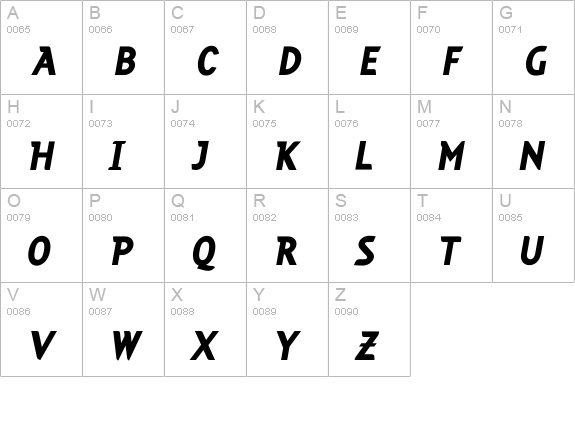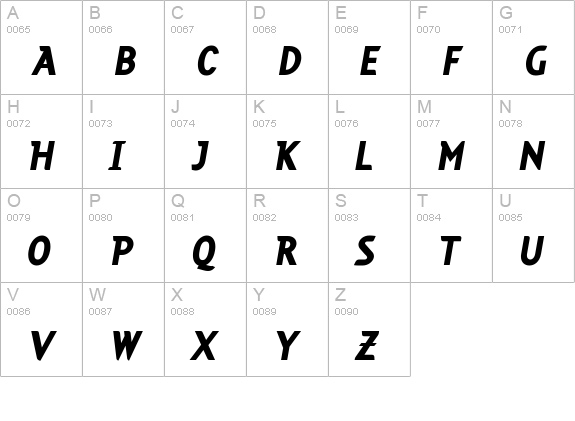
Cuban-BoldItalic is a stunning and expressive font that exudes sophistication and flair. With its bold yet elegant appearance, this font is perfect for making a bold statement in your designs. The italicized style adds a touch of dynamism and modernity to any project, whether it be for branding, advertising, or editorial purposes. The best part? Cuban-BoldItalic is available for free download at FontsMarket.com. This means you can easily access this high-quality font to elevate your designs without any cost. Embrace the beauty and versatility of Cuban-BoldItalic in your next project and make a lasting impression with its unique and eye-catching style.